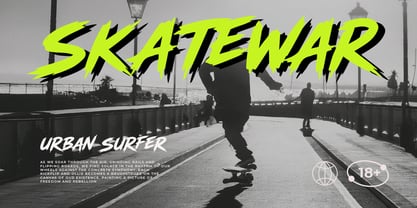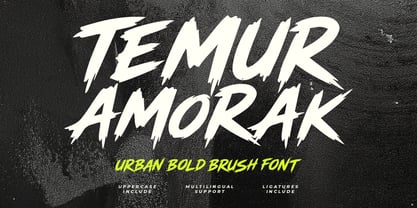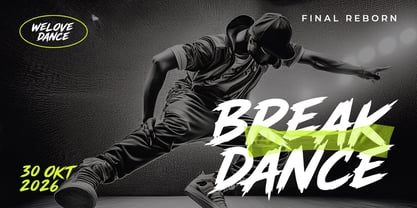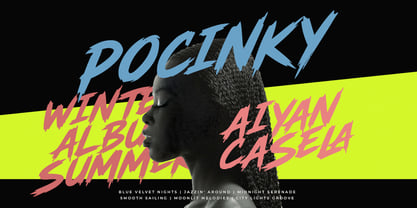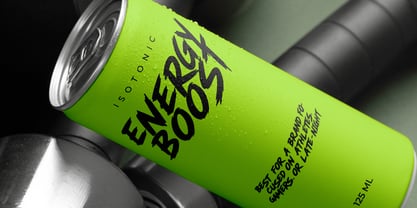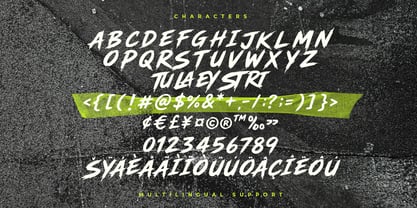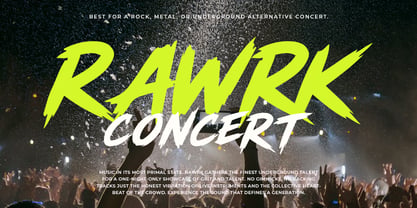
MC Temur Amorak
par Maulana Creative
La famille de polices MC Temur Amorak a été conçue par Gilang Maulana et publiée par Maulana Creative. MC Temur Amorak contient 1 styles. En savoir plus sur cette famille
Temur Amorak is a high-impact, hand-drawn brush font designed to deliver raw energy and aggressive motion to any visual project. Characterized by its sharp, jagged edges and fast-paced strokes, this typeface captures a gritty, rebellious aesthetic that demands attention. It features full uppercase characters, multilingual support, and unique ligatures that enhance the authentic texture of real ink. Perfect for concert, sports branding, gaming content, and cinematic titles, Temur Amorak provides a bold, unapologetic look that stands out against any background.